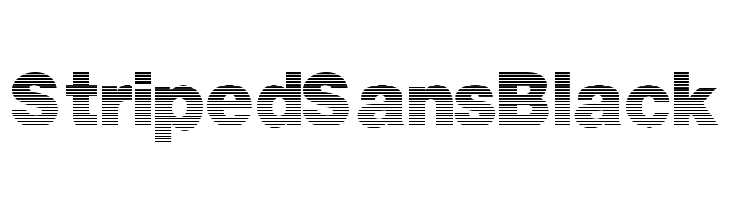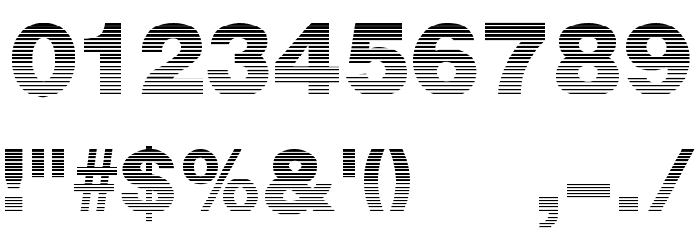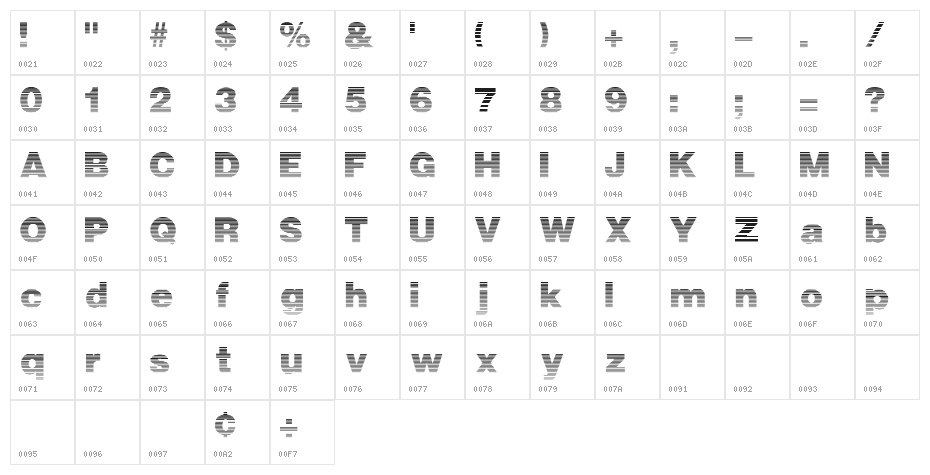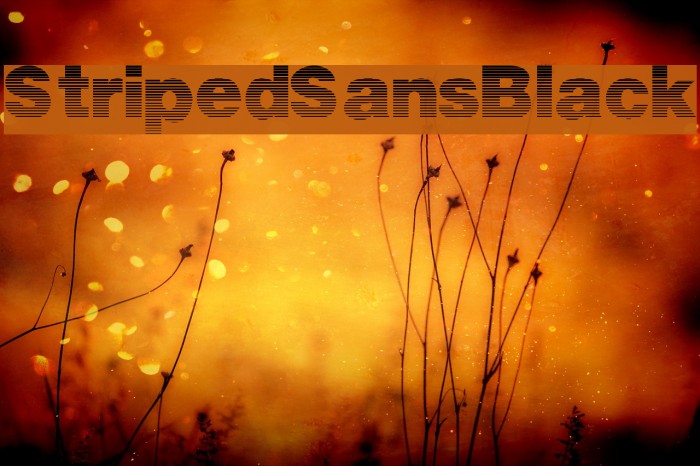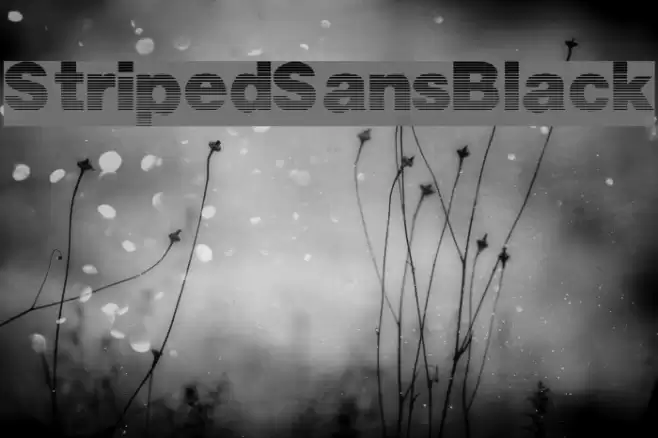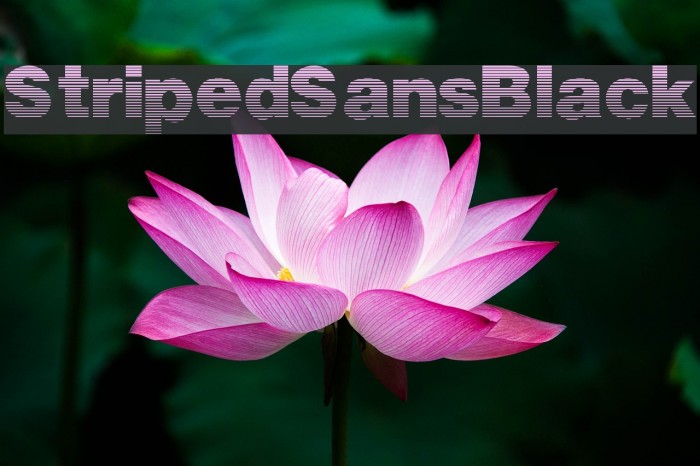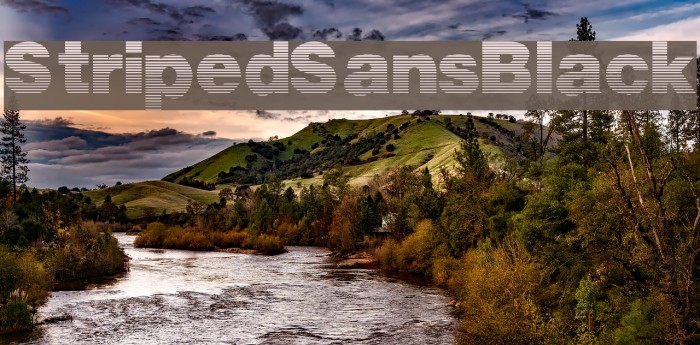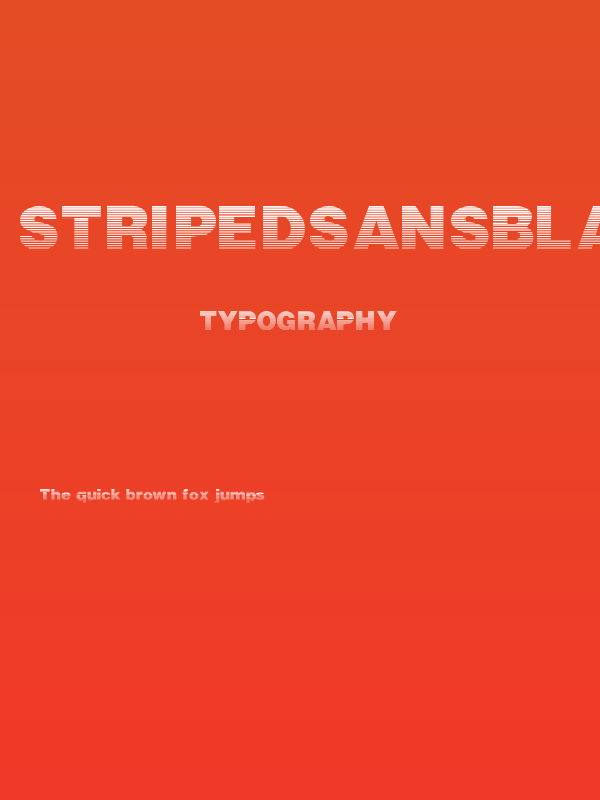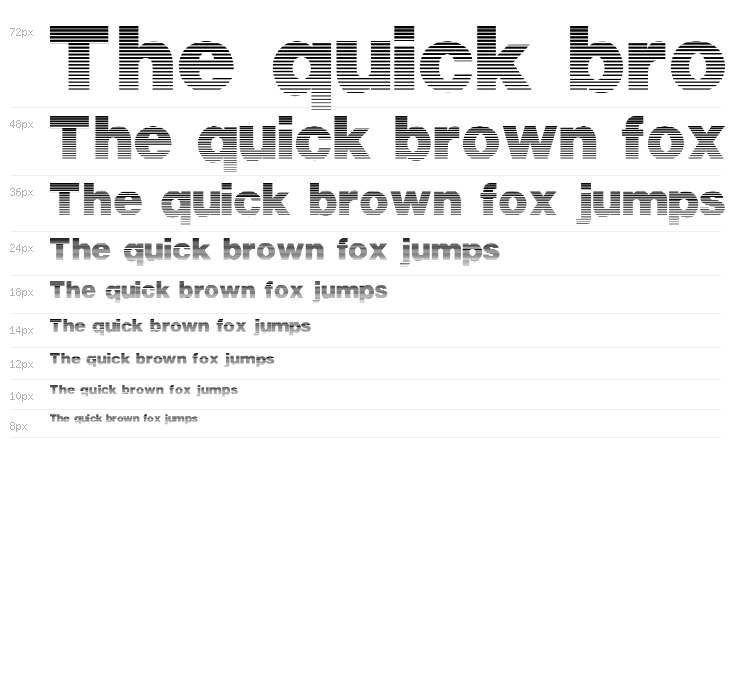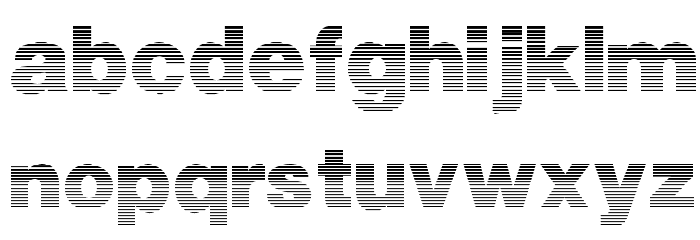
StripedSansBlack Font
StripedSansBlack Description
This font features a bold, sans-serif style with a unique striped pattern running horizontally across each character. The stripes create a visually striking effect, adding depth and texture to the letters. The uppercase and lowercase characters maintain a consistent design, with clean lines and a modern aesthetic. Numbers and special characters are also included, following the same striped theme. The font's boldness and distinctive appearance make it ideal for attention-grabbing designs.
| Proposed Projects | Ideal for posters, headlines, branding, and any design project requiring a bold, modern touch. |